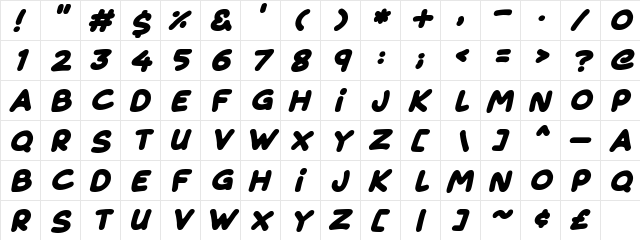
Magical Markers Italic
Design Context for Magical Markers Typeface
Magical Markers is a composed and adaptable typeface that performs quietly and consistently across a wide range of design contexts. The dynamic lean of this cut emphasises speed and emphasis in any layout.
Pro Tip: Use Magical Markers for emphasis, pull quotes, and subheadings where its slanted energy can add rhythm to the layout.